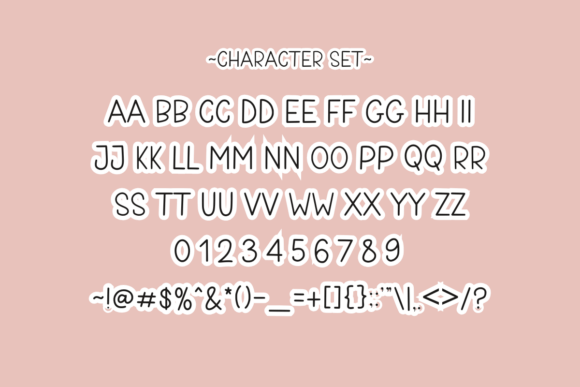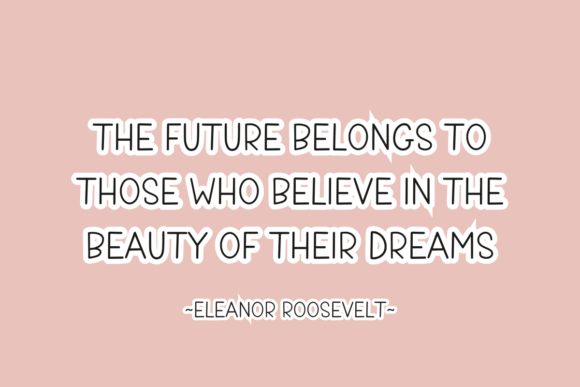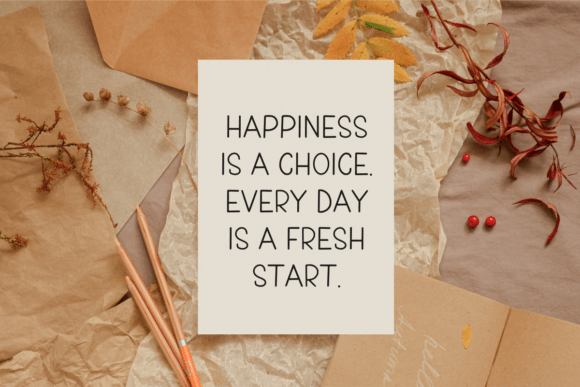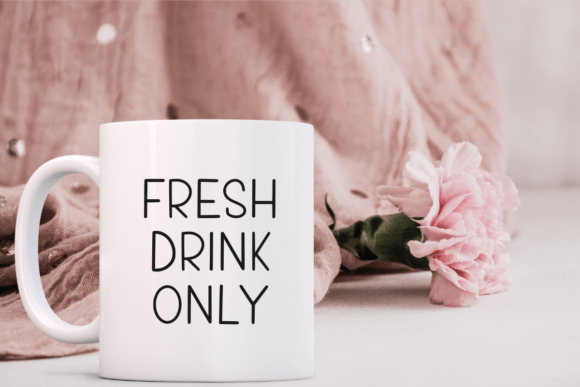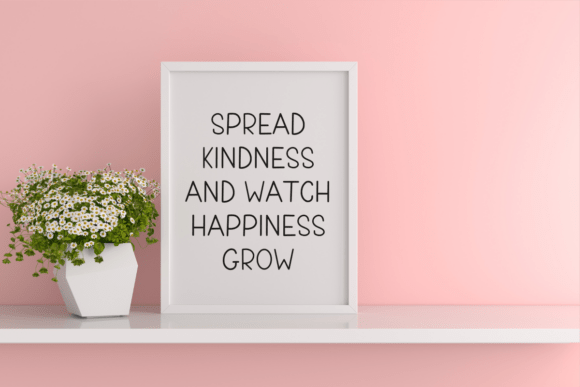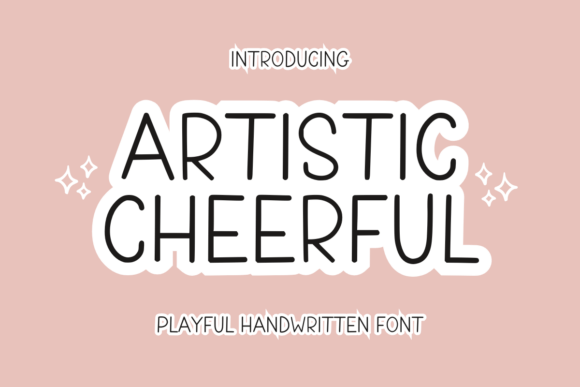
The Joy of Artistic Cheerful Font: A Designer’s New Best Friend
I still remember the moment I stumbled upon the Artistic Cheerful font. I was working on a last-minute project for a client who needed a custom greeting card design. I had tried a few fonts, but none seemed to capture the playful, cheerful vibe I was going for. That’s when I discovered Artistic Cheerful, and it instantly became the perfect fit. Its cute and friendly style brought my design to life, and the client loved it! Since then, I’ve been hooked on this font and can’t wait to share its awesomeness with you.
What I Love About Artistic Cheerful ✨
• Playful and handwritten style that’s perfect for crafts, planners, and DIY projects ✅
• Cute and friendly aesthetic that appeals to a wide range of audiences 👧
• Works great for Cricut, sublimation, and other creative projects 🎨
• Easy to read and understand, even in smaller font sizes 📚
• Some letters may appear a bit inconsistent in size or spacing, which can be adjusted with kerning ⚠️
• Limited language support, mainly focused on English and basic Latin characters 🌎
The Story Behind Artistic Cheerful: Designer Inspiration
Artistic Cheerful was created with the intention of bringing a playful, cheerful vibe to the world of typography. The designer, inspired by the joy of crafting and DIY projects, aimed to create a font that would make designs more fun and engaging. With its cute and friendly style, Artistic Cheerful has become a favorite among crafters, designers, and makers 🎨
Q: Is Artistic Cheerful suitable for body text?
A: While Artistic Cheerful is primarily designed for display purposes, it can be used for body text in smaller font sizes. However, keep in mind that readability may vary depending on the context and design 📰